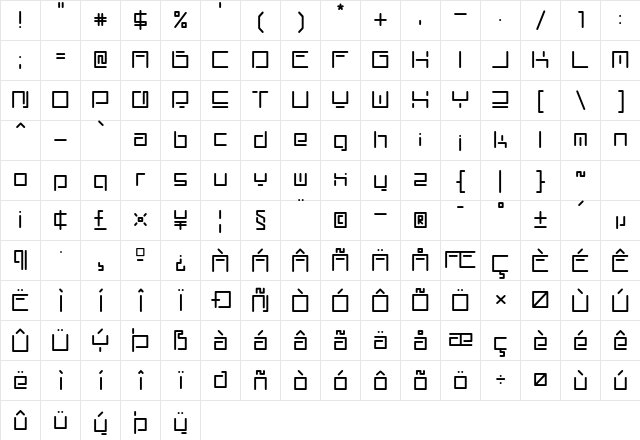
Rectand Regular
| Designer | Muhammad Ardyan |
Design Context for Rectand Typeface
Rectand is a composed and adaptable typeface that performs quietly and consistently across a wide range of design contexts.